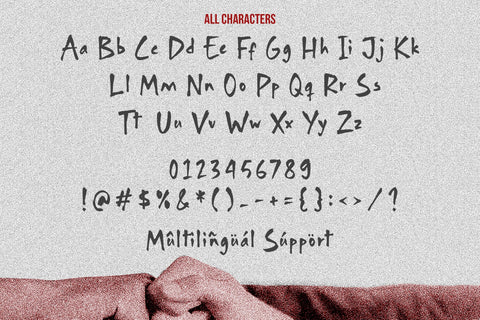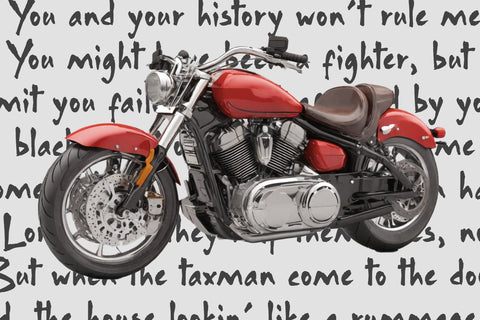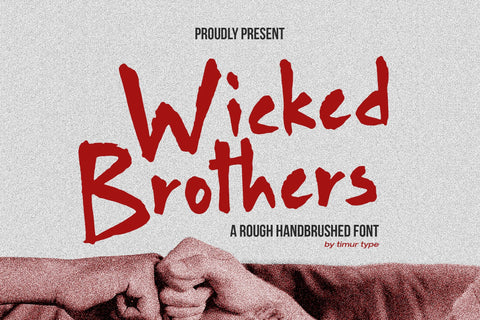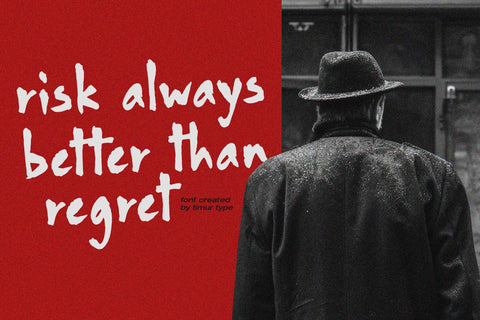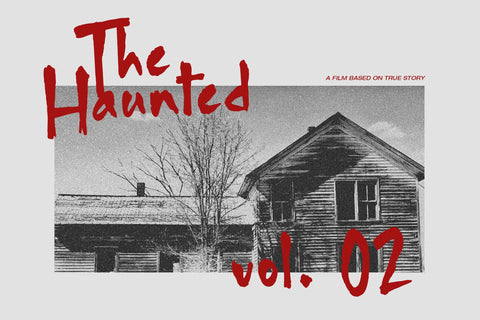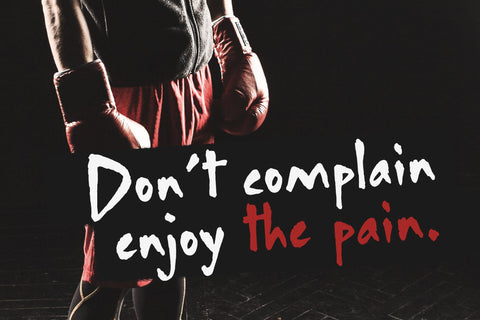
Wicked Brothers - Rough Handbrushed Font
Wicked Brothers is a Rough Handbrushed Font
This font is a rough handbrushed font that exudes an edgy and rebellious vibe. Its rugged strokes and uneven lines give it a raw and untamed feel, perfect for designs seeking a bold and dynamic aesthetic. With its distinctive personality, Wicked Brothers adds a touch of attitude to any project, making it ideal for posters, logos, and branding that demand attention and stand out from the crowd.
Wicked Brothers Font also supports multilingualism